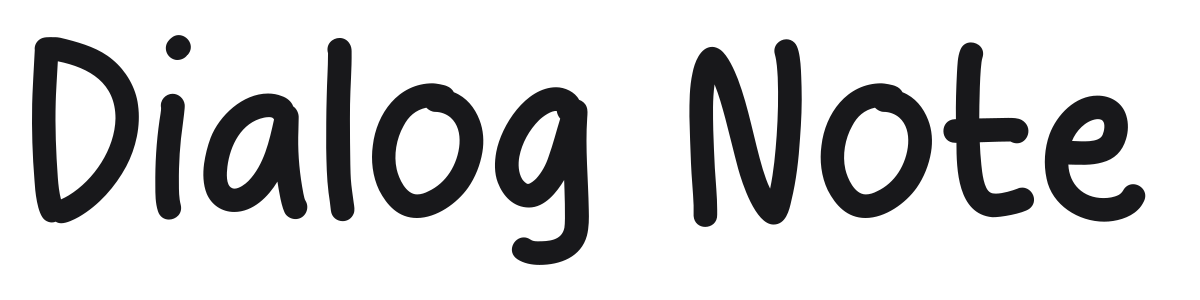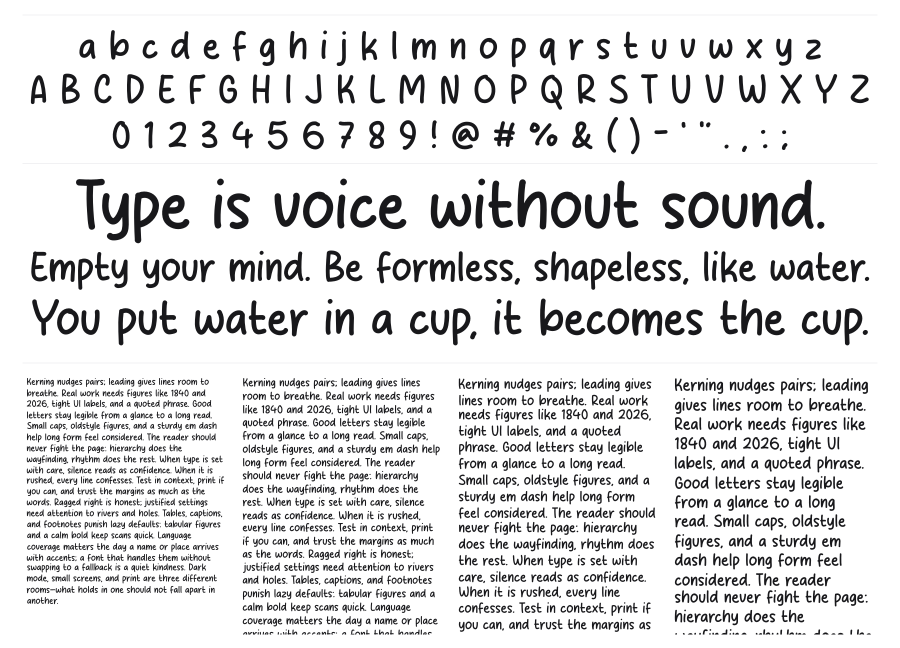
Dialog Note
Dialog Note is a casual handwritten font with a bold, rounded character and a natural marker-like feel. The subtle baseline irregularity and slightly uneven strokes keep it feeling genuinely hand-drawn rather than mechanical. It brings warmth to packaging, children's content, and informal branding.